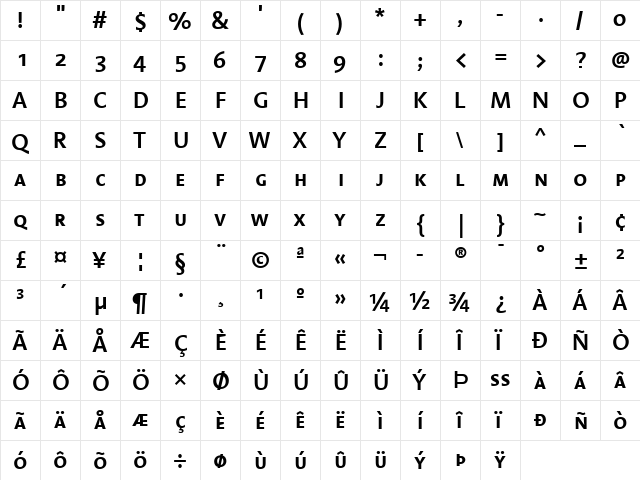
LinotypeAromaSC Light SemiBold
Design Context for LinotypeAromaSC Light Typeface
LinotypeAromaSC Light takes a measured approach to typography — its balanced proportions and neutral character make it a reliable workhorse for both digital and print work. The heavy weight commands attention and anchors typographic hierarchies.